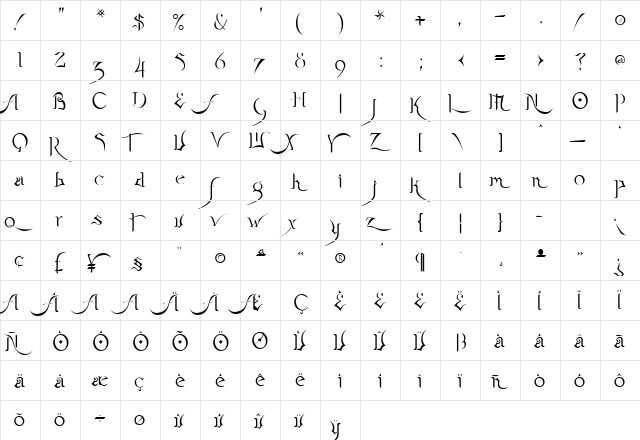
Swashbuckler Script
| Style | Script |
Design Context for Swashbuckler Typeface
Swashbuckler brings a calligraphic fluidity to the page — its connecting strokes and expressive curves give it an unmistakably human quality.
Font Pairing: Combine Swashbuckler with a simple geometric sans for maximum contrast — the tension between flowing curves and clean structure is a classic typographic pairing.
Pro Tip: Use Swashbuckler for short runs of text — names, titles, or taglines. Extended body copy in script faces tires the eye quickly.